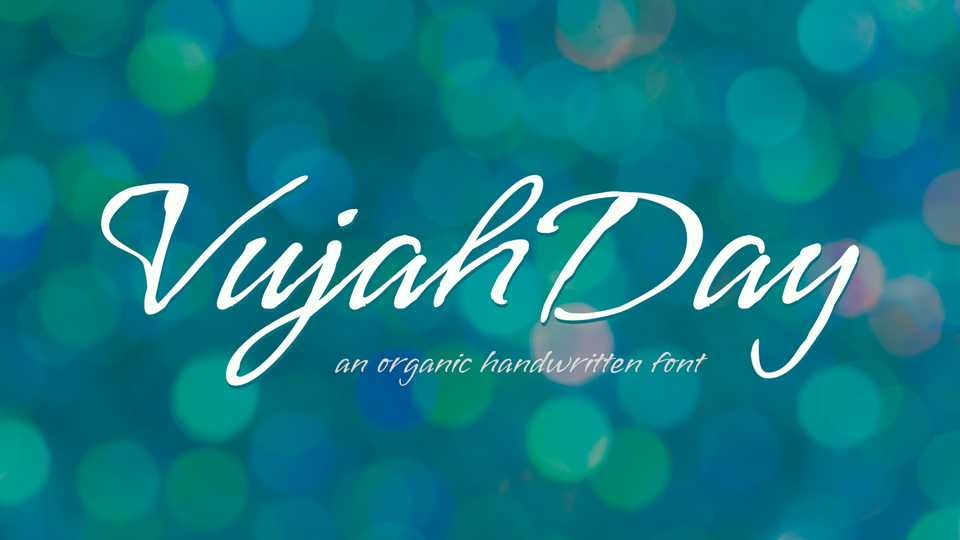
Download VujahDay font, a simple and natural script typeface that comes with both a plain and a script stylistic set. VujahDay’s rough edge adds to the handwritten feel.